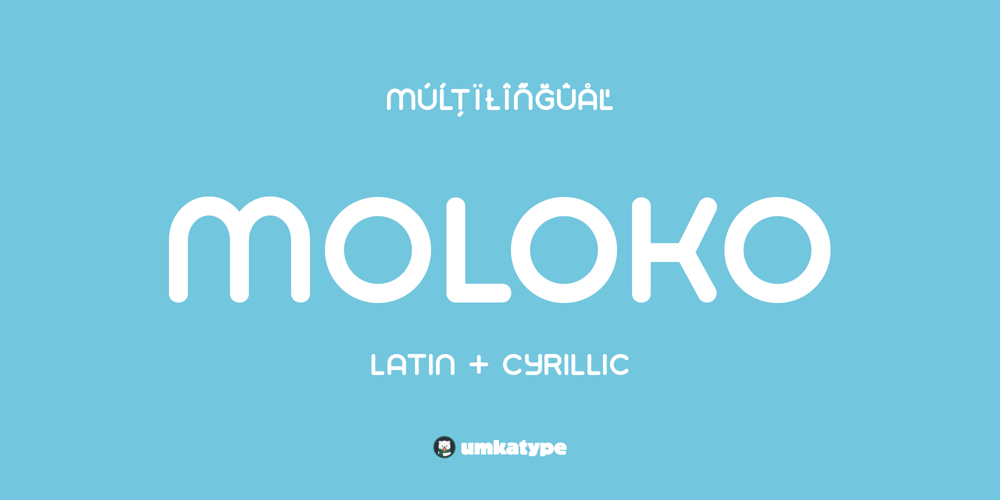
Moloko Font Family was designed by Alper Çakıcı and published by Umka Type. Moloko contains 1 styles and family package options. Moloko is a contemporary and geometric typeface, meticulously crafted with excellent kerning for optimal readability in both digital and print media. Its comprehensive support for the Cyrillic language ensures effortless multilingual communication. Moloko’s unique design seamlessly blends classic proportions with a modern touch, setting it apart as a standout choice among fonts of similar categories.With an extensive language support of 91 languages including Belarusian, Russian, Afrikaans, Albanian, Asu, Basque, Bemba, Bena, Breton, Catalan, Chiga, Colognian, Cornish, Croatian, Czech, Danish, Dutch, Embu, English, Esperanto, Estonian, Faroese, Filipino, Finnish, French, Friulian, Galician, German, Gusii, Hungarian, Indonesian, Irish, Italian, Kabuverdianu, Kalenjin, Kamba, Kikuyu, Kinyarwanda, Latvian, Lithuanian, Lower Sorbian, Luo, Luxembourgish, Luyia, Machame, Makhuwa-Meetto, Makonde, Malagasy, Maltese, Manx, Meru, Morisyen, North Ndebele, Norwegian Bokmål, Norwegian Nynorsk, Nyankole, Oromo, Polish, Portuguese, Quechua, Romanian, Romansh, Rombo, Rundi, Rwa, Samburu, Sango, Sangu, Scottish Gaelic, Sena, Serbian, Shambala, Shona, Slovak, Soga, Somali, Spanish, Swahili, Swedish, Swiss German, Taita, Teso, Turkish, Upper Sorbian, Uzbek (Latin), Volapük, Vunjo, Walser, Welsh, Western Frisian, and Zulu, Moloko empowers your designs with global accessibility and aesthetic appeal.